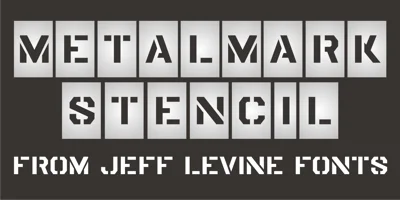
Metalmark Stencil JNL Font
This industrial typeface is perfect for military equipment labeling, shipping containers, warehouse signage, manufacturing plants, industrial machinery, stencil art projects, street art galleries, urban fashion brands, tactical gear companies, construction sites, utility markings, and rugged outdoor equipment. The font's utilitarian design makes it ideal for projects that emphasize functionality, durability, and the practical beauty of industrial marking systems and military-grade identification requirements.
Metalmark Stencil JNL Font is exciting because it embodies industrial precision and military-grade functionality through its authentic stencil letterforms and tactical character structure. The font's cut-out design and robust proportions create an atmosphere of efficiency, practicality, and field-tested reliability, making it perfect for brands that want to convey toughness, authenticity, and the no-nonsense approach of professional industrial applications. Its utilitarian personality ensures instant recognition while maintaining excellent readability across various marking applications.
The Metalmark Stencil JNL Font family includes multiple tactical variations: Light Template, Regular Stencil, Medium Industrial, Bold Military, and Black Tactical weights, each featuring authentic cut-out characteristics. Special field editions include weathered alternates, utility symbols, and industrial ornaments that enhance the font's practical appeal, providing designers with comprehensive tools for creating authentic industrial communications.
Mark your territory with Metalmark Stencil JNL Font – a typeface that represents industrial strength and tactical precision. Whether you're developing military branding, industrial signage projects, or urban street art campaigns, this font delivers the utilitarian authenticity and field-tested durability your projects need while ensuring exceptional performance and industrial impact across all tactical and marking applications.